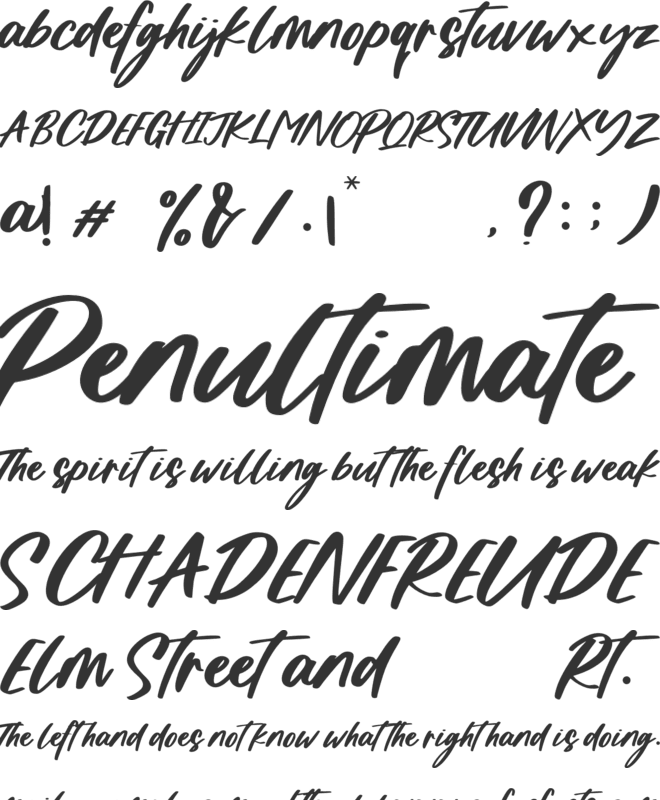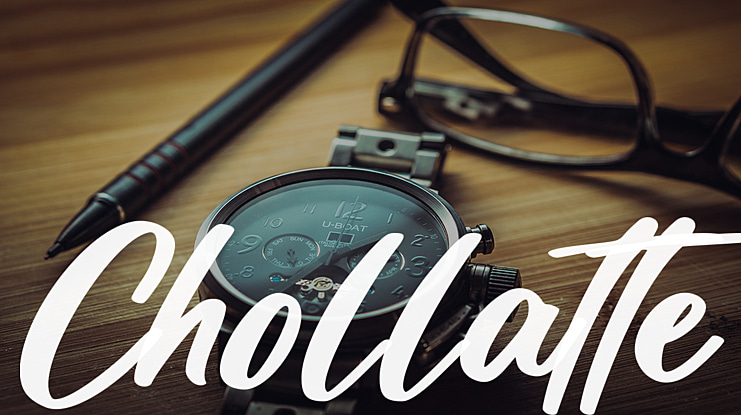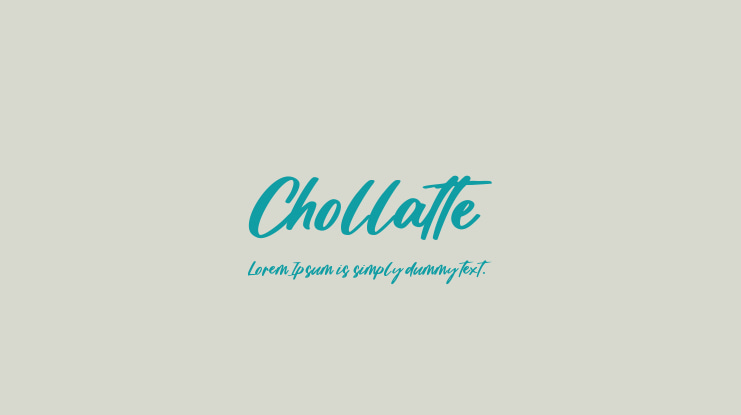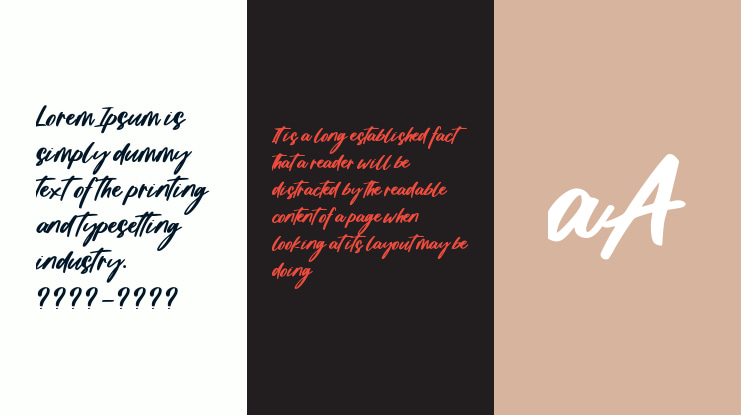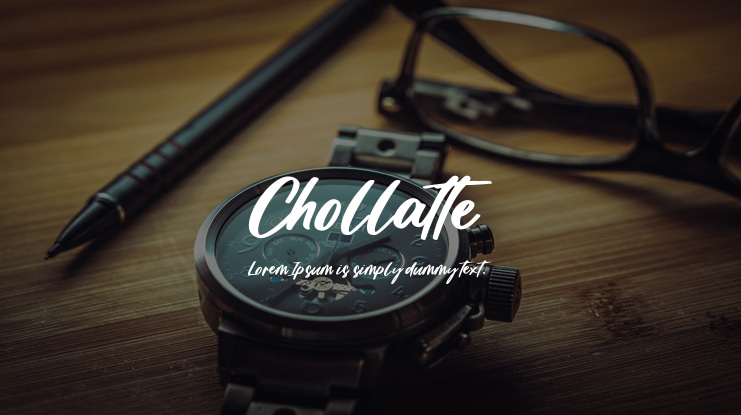
Chollatte Font
Chollatte, is a unique, attractive, and modern brush font.This font is suitable for Branding, Logos, Wedding Cards, Food and Drink Products, greeting cards, Quotes, T-shirt, Souvenirs, Handcrafts, Silhouette design and more.Chollatte has a swash ending in several letters, this feature is very attractive and beautifies your design projects.For commercial Usehttps://silverdav.com/product/chollatte/Contact UsWhatsapp : +62 822-3822-8044 / 0822-3822-8044
Chollatte font preview